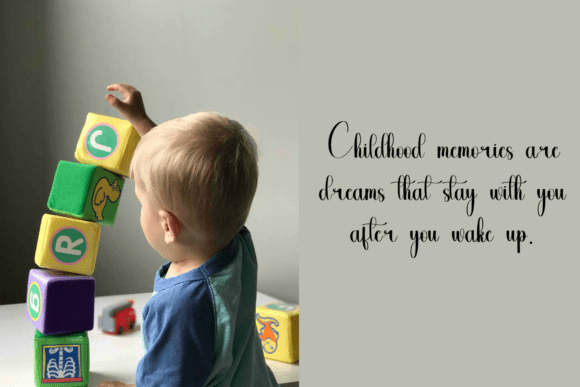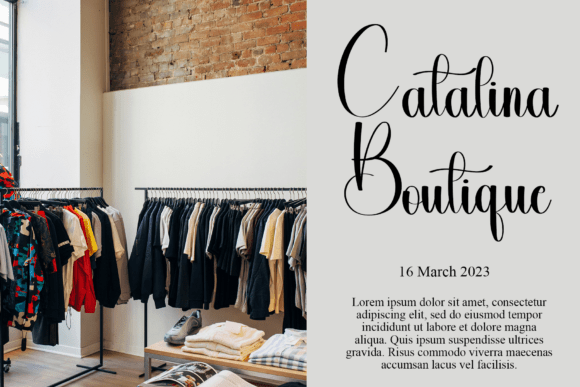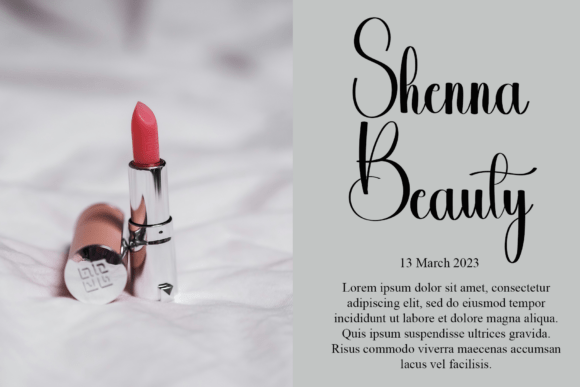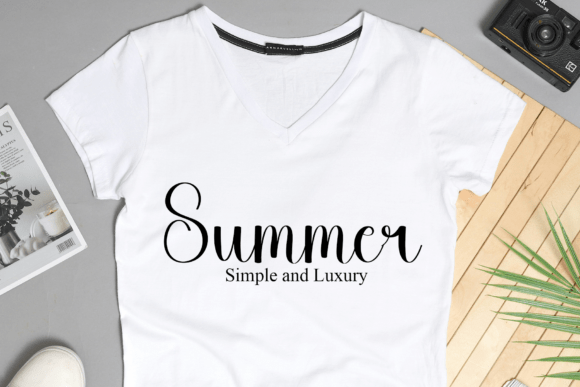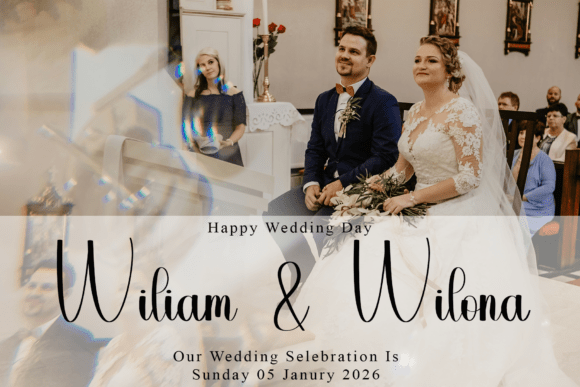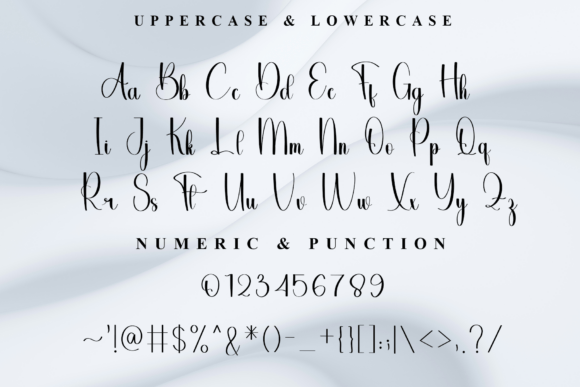
Deck the Halls with Typography
As you sit by the fireplace, surrounded by twinkling lights and the warmth of loved ones, you can’t help but feel the magic of the holiday season. It’s a time when creativity flows, and the world becomes a canvas of endless possibilities. You’re brainstorming ideas for the perfect holiday card, and you stumble upon the perfect typography to match your festive spirit.
That’s where Child Font comes in – a delightful, merry typeface designed to capture the essence of the holiday season. With its playful decorations and whimsical flair, this font adds a touch of enchantment to your designs, making it perfect for greeting cards, gift tags, and holiday-themed projects. As a designer, you’ll appreciate the value Child Font brings to your work, elevating your typography to new heights.
With its PUA encoding, you’ll have access to all the amazing glyphs and ligatures, allowing you to unleash your creativity and let your typography shine with the magic of Child Font.
Child Font Key Features
- Unique Characteristics: This font features a playful, cursive script with rounded edges and soft lines, making it ideal for children’s books, educational materials, and other applications where a friendly tone is desired.
Designer Review: Child Font
Overall, I’d say that Child Font is a cute and playful typeface. It’s perfect for projects that require a whimsical feel, like children’s books, nursery decorations, or even kids’ websites. The font’s rounded edges and soft curves give it a friendly, approachable vibe that’s hard to resist.
- ✨ Unique and memorable design: Child Font stands out from more generic sans-serif fonts, making it a great choice for projects that need to grab attention.
- ✨ Versatile: It works well in both small and large font sizes, making it suitable for a wide range of applications.
- ✨ Easy to read: Despite its playful nature, Child Font is surprisingly legible, even at smaller sizes.
- ⚠️ Limited versatility for formal projects: Child Font’s playful design might not be suitable for more formal or professional projects, like business reports or academic papers.
- ⚠️ Not ideal for text-heavy content: The font’s rounded edges and soft curves can make it difficult to read large blocks of text, so it’s best used for short quotes or headings.
Overall, I think Child Font is a great choice for projects that require a touch of whimsy and playfulness. Just be mindful of its limitations and use it in moderation.
The Child Font is commonly used in:
- Children’s book covers and illustrations
- Playful marketing campaigns targeting families
- Whimsical designs and graphics